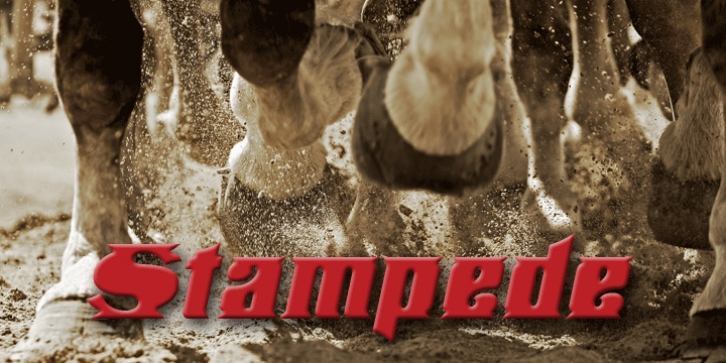
Stampede downloadDesigner: Michael Hagemann
Stampede was created from a small sample of letters found on an old document dating back to 1902 from the Chicago, Indiana & Eastern Railway Co.